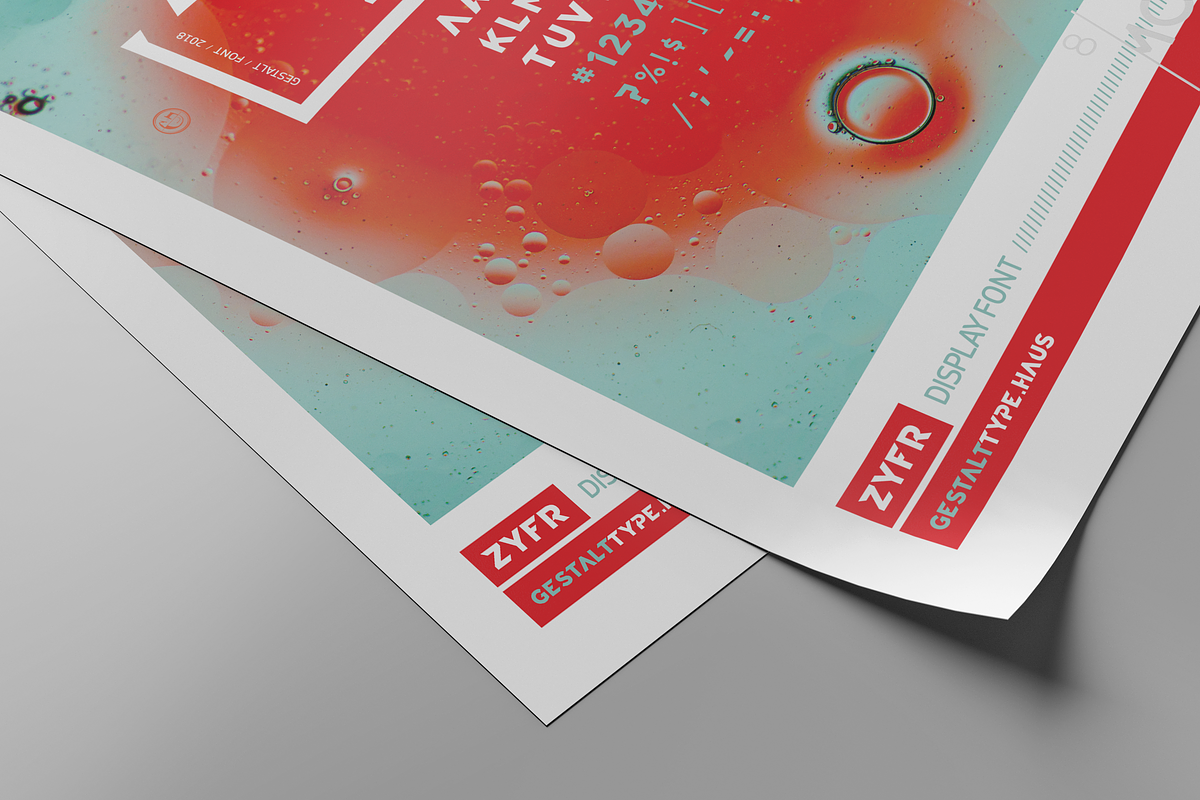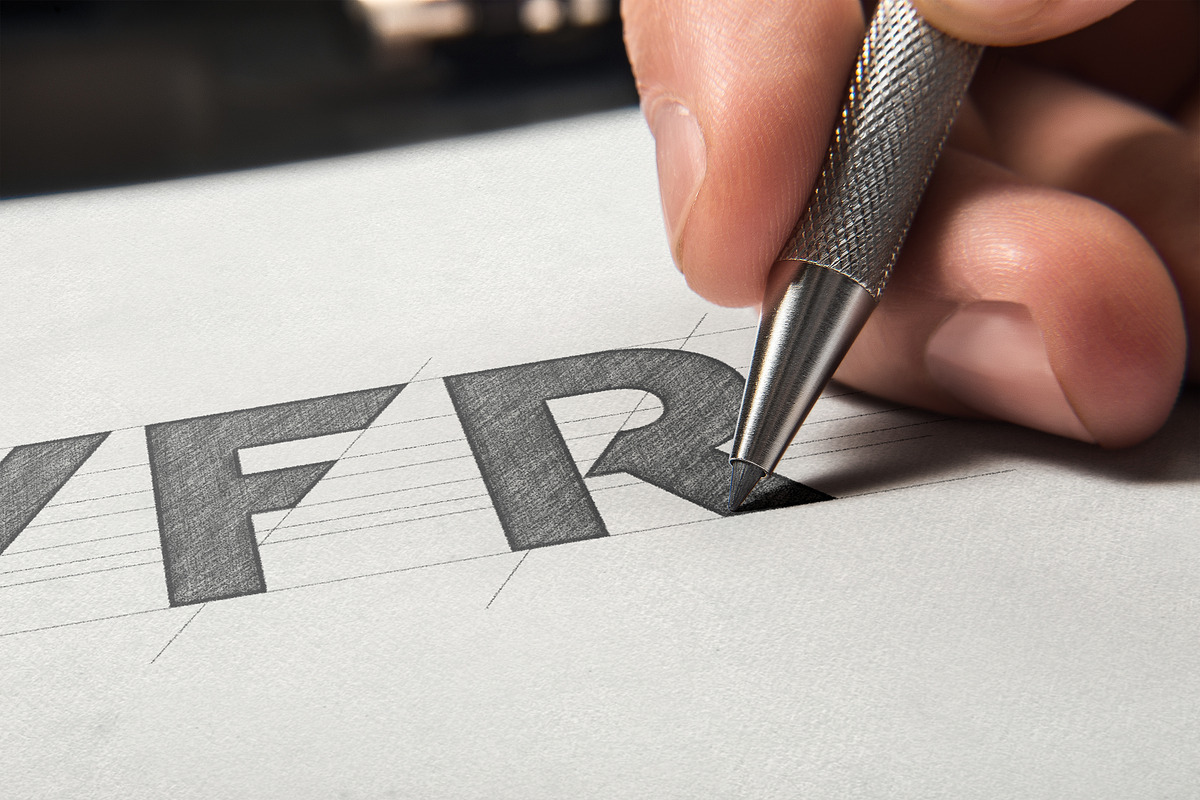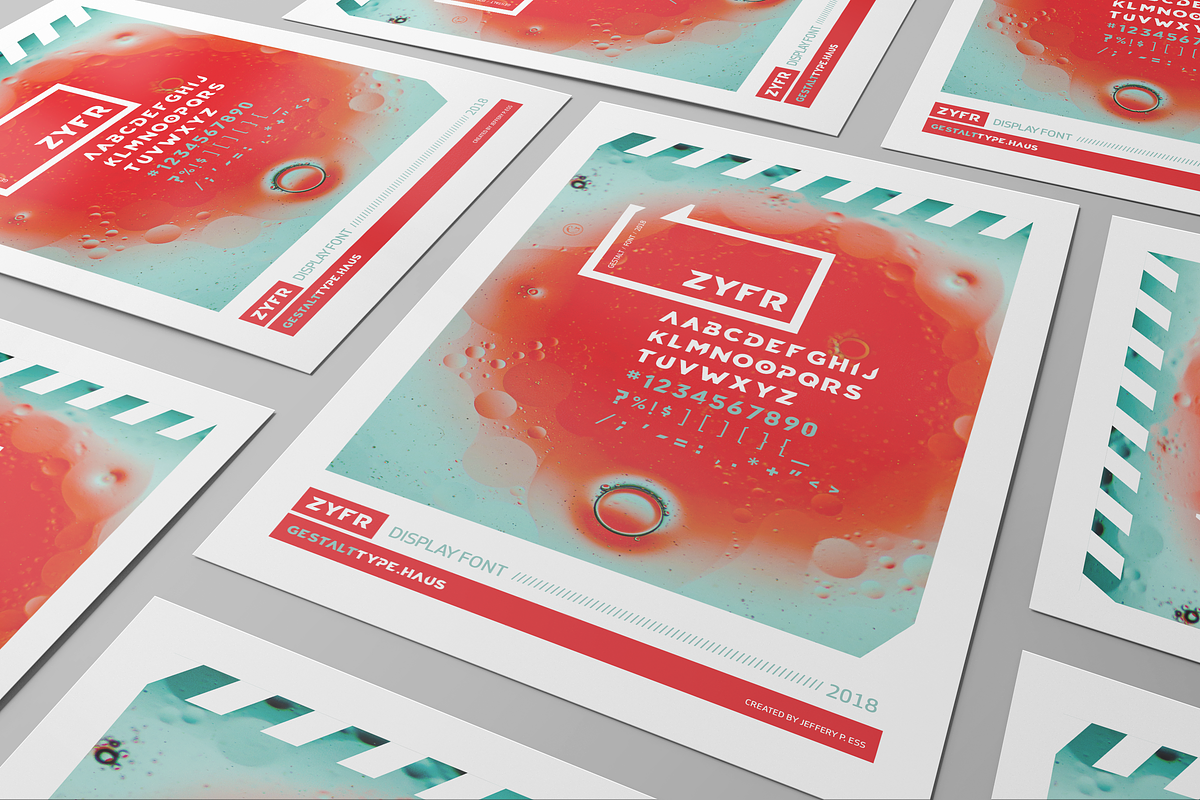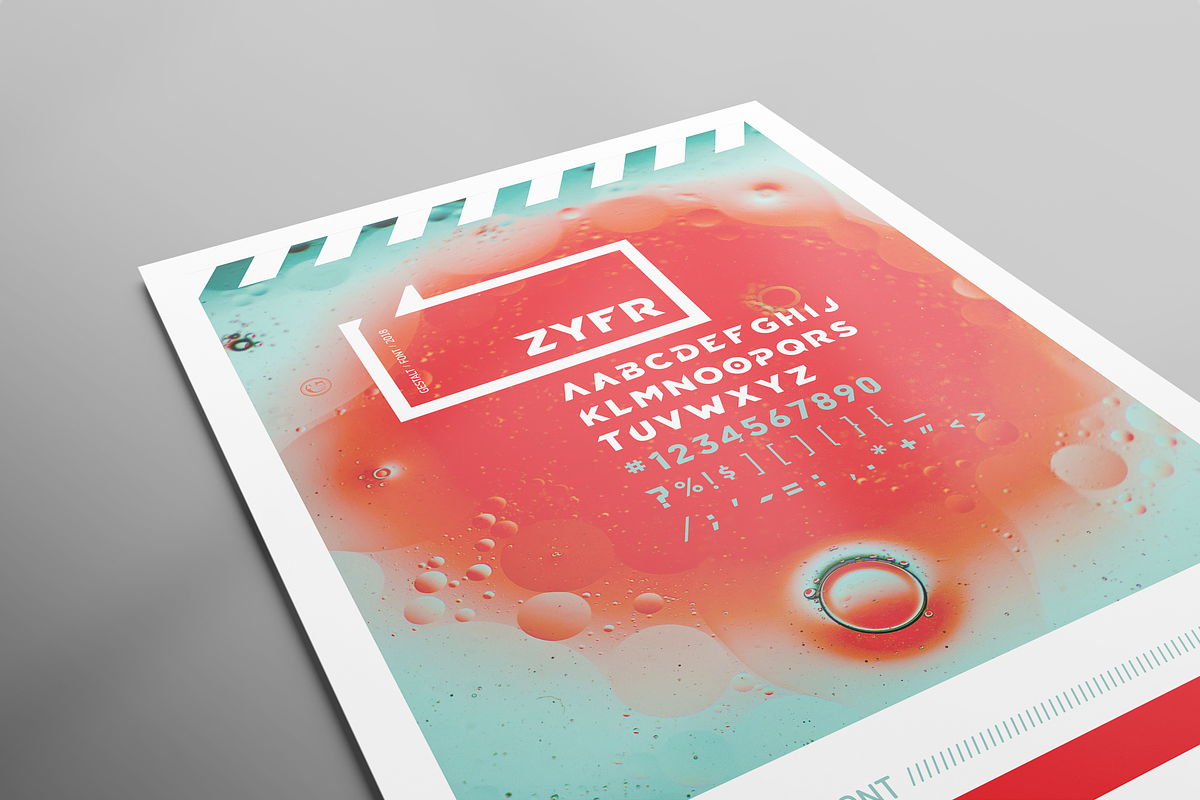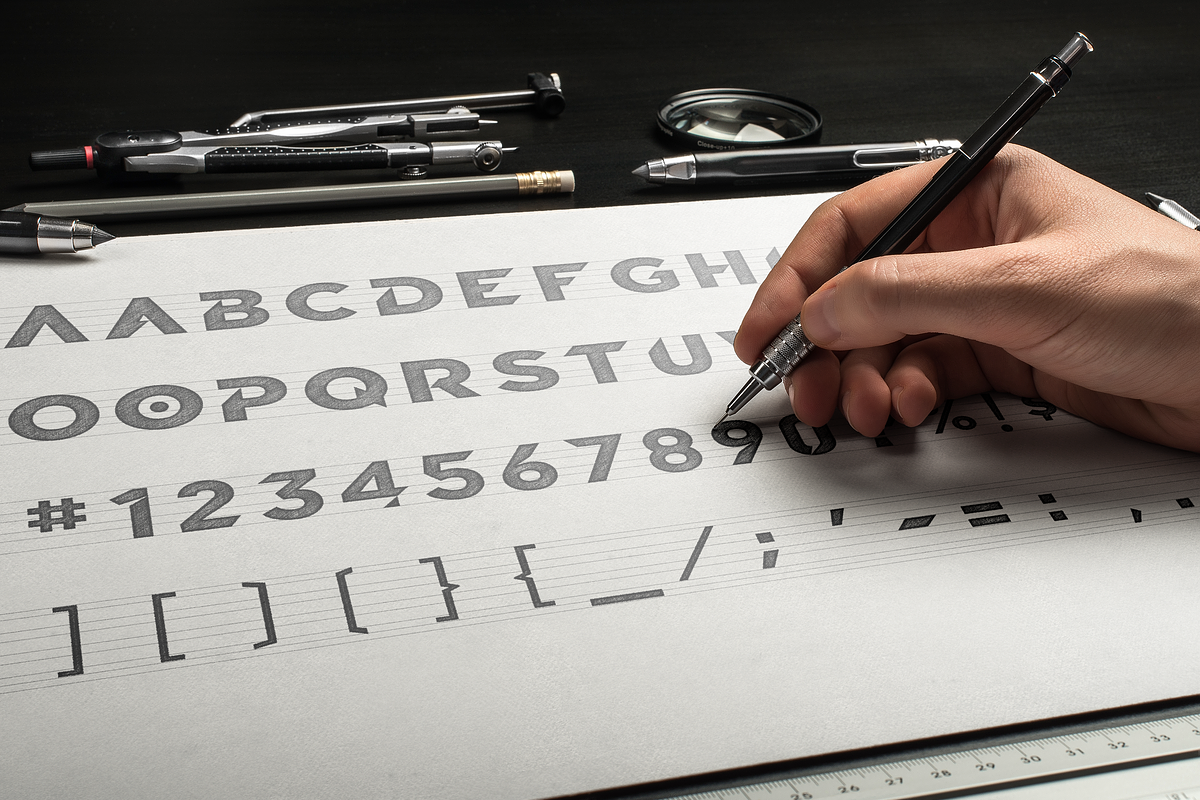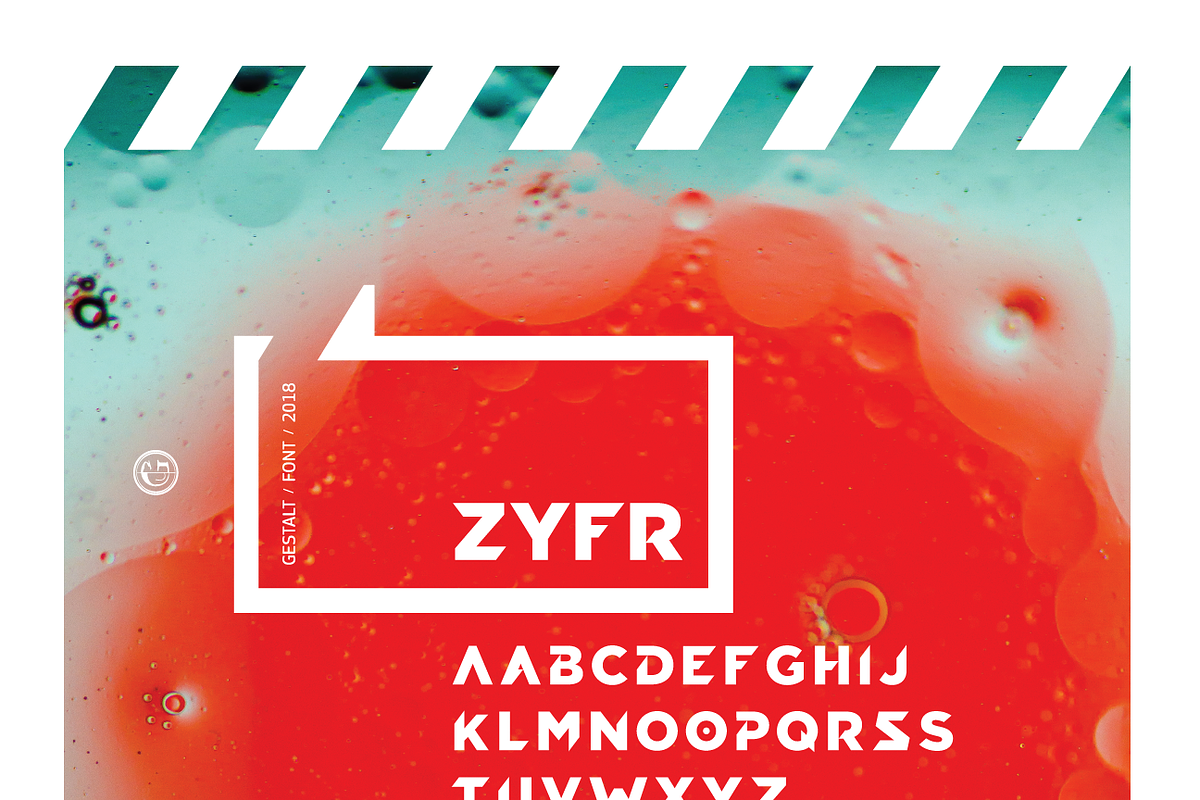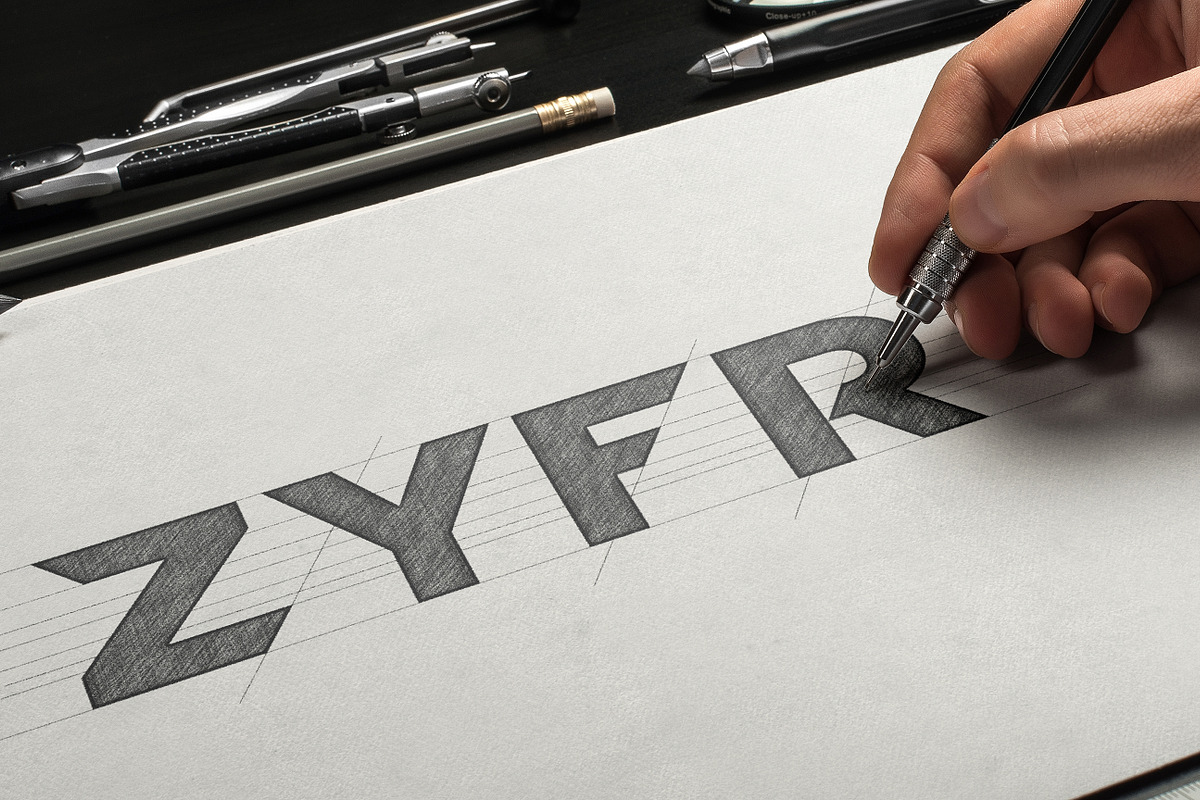
ZYFR - VINTAGE/MODERN DISPLAY FONT
I was inspired by the Creative Market Community to design a typeface that I felt like I was looking for. I took the perspective of the client and I wanted something that looked progressive by nature and yet seamlessly timeless. I wanted it to feel vintage and yet clean. I wanted something that I could instantly dial the identity of the font up and down. By toggling between lower and uppercase on the keyboard with a few of the characters (i.e.; "Aa, Oo, Ss). These few characters when used can display instant gratification and allowing you to recognize an opportunity to inspire you to enhance your project in an instant.
- By toggling between lower and uppercase on the keyboard with a few of the characters (i.e.; "Aa, Oo, Ss).
- These few characters when used can display instant gratification and allowing you to recognize an opportunity to inspire you to enhance your
- GESTALT // ZYFR Display // 01